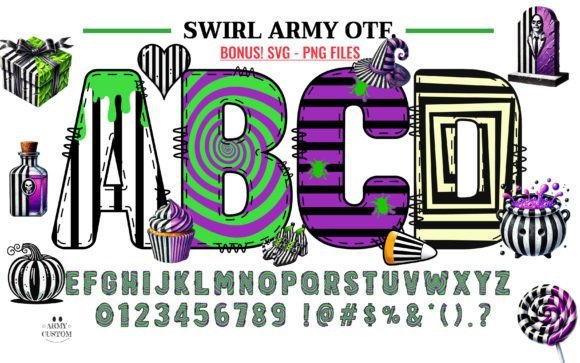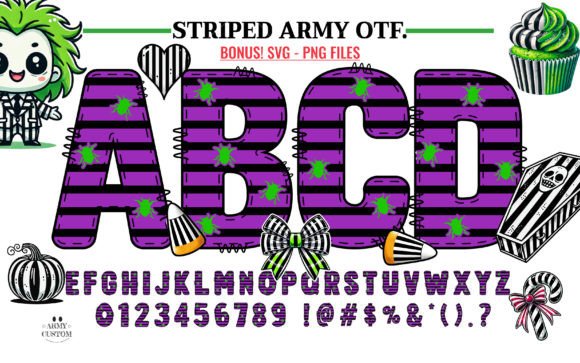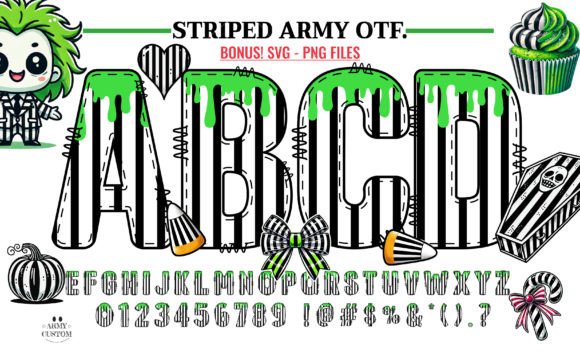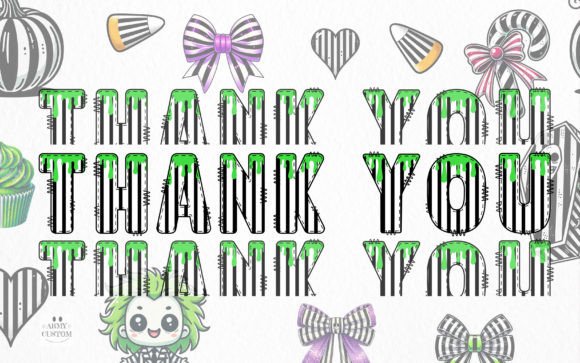
The Ultimate Halloween Font: Unleash Your Creativity with the Halloween Army Bundle Font
As the leaves start to change colors and the crisp autumn air sets in, many of us can’t help but feel a thrill of excitement for the spookiest time of the year – Halloween. And for designers, it’s the perfect opportunity to get creative with festive projects, from spooky decorations to eerie crafts. But what sets your creations apart from the rest? The answer lies in the perfect font – and that’s where the Halloween Army Bundle Font comes in.
This enchanting font is designed to add an unmistakable touch of magic to your creations, making every project a standout piece. Whether you’re crafting arts and crafts projects, designing scrapbooking pages, or creating unique stationery, the Halloween Army Bundle Font is the perfect companion to help you bring your imagination to life. And with its compatibility with popular design programs, you can unleash your creativity without any limits.
Halloween Army Bundle Font Key Features
- Font Family: The font bundle includes multiple font families, each with its unique style and design, perfect for creating a spooky atmosphere.
- Resolution: The fonts are designed to be high-resolution, ensuring crisp and clear display on screens and printed materials.
- Unique Characteristics: The Halloween Army Bundle Font features unique characters, including creepy creatures, spooky symbols, and eerie accents, adding a touch of horror to any design.
Halloween Army Bundle Font Review
Overall, I was quite impressed with the Halloween Army Bundle Font. It’s a unique and quirky font that’s perfect for adding a touch of Halloween spirit to your designs. Here are some things that I think work well:
- ✨ The font is highly customizable, with a wide range of options for modifying the style and feel.
- ✨ The font includes a variety of glyphs and characters that are perfect for creating spooky and eerie effects.
- ✨ The font is well-suited for use in digital design, with clear and crisp lines that make it easy to read.
However, there are a few limitations that I want to mention:
- ⚠️ The font is a bit over-ornate in some areas, which can make it difficult to read in certain situations.
- ⚠️ The font is not suitable for use in print, as the lines can be a bit too thin and may not hold up well to scaling.
- ⚠️ The font is only available in a limited range of languages, which may be a problem for designers who need to create content in multiple languages.
Overall, I think the Halloween Army Bundle Font is a great choice for designers who are looking for a unique and spooky font for their Halloween designs. While it has some limitations, I think it’s well worth the cost and can add a lot of character to your designs.
The Halloween Army Bundle Font is perfect for creating spooky and eerie designs for:
Halloween-themed parties and decorations
Spooky websites and social media graphics
Horror movie and book covers
Creepy typography and text effects